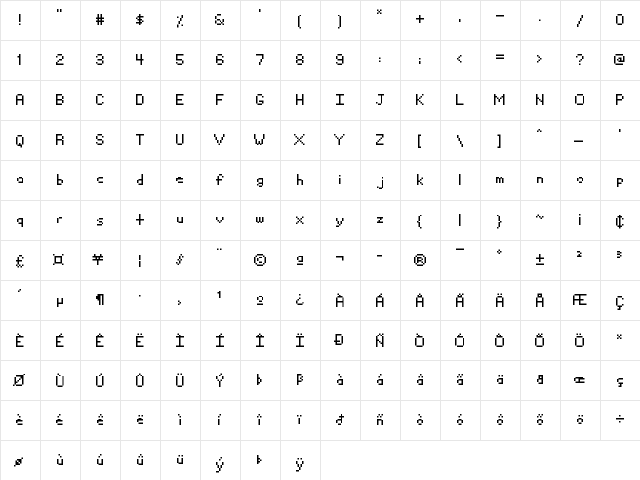
AtAt Pixel Regular
| Designer | At-At-Guy |
Design Context for AtAt Pixel Typeface
AtAt Pixel is rooted in pixel-grid construction, making it a natural fit for game UI, retro computing aesthetics, and digital nostalgia projects.
A natural choice for retro game titles, chiptune music branding, 8-bit UI, and digital nostalgia projects.
Pro Tip: Pair AtAt Pixel with flat colour palettes and simple geometric UI elements to reinforce its digital aesthetic.